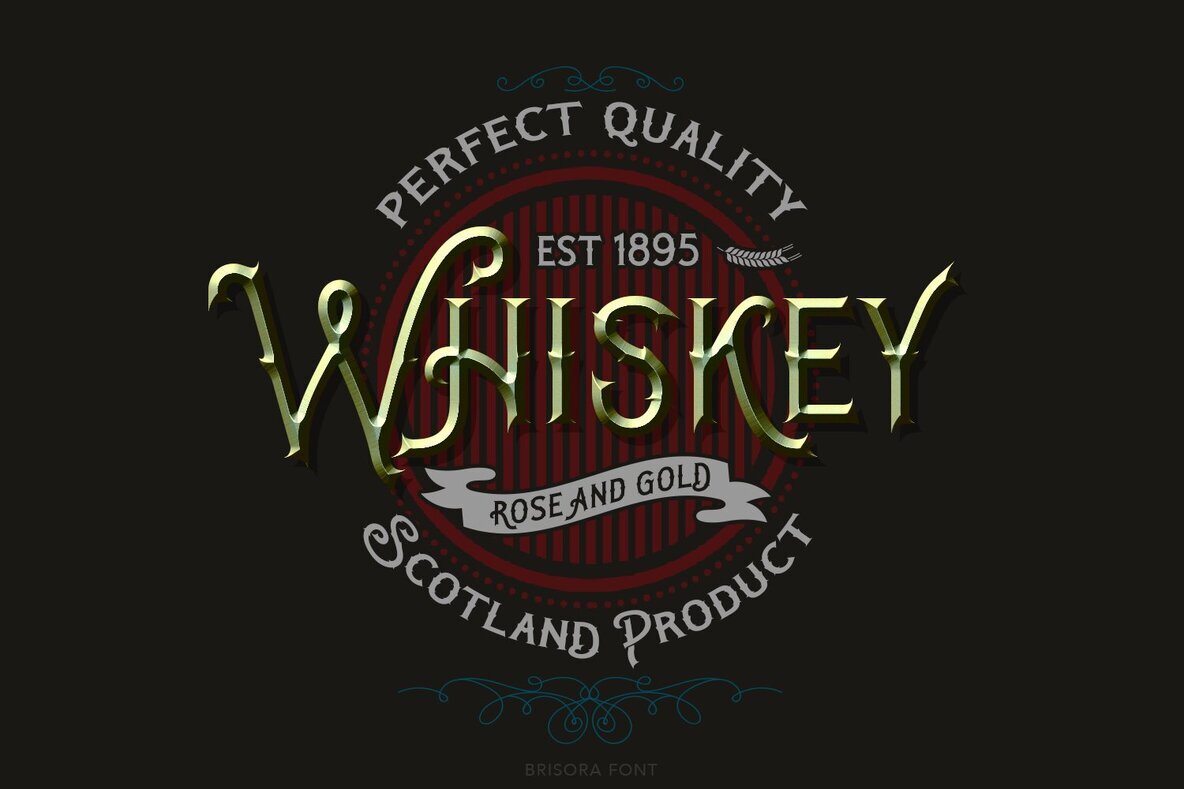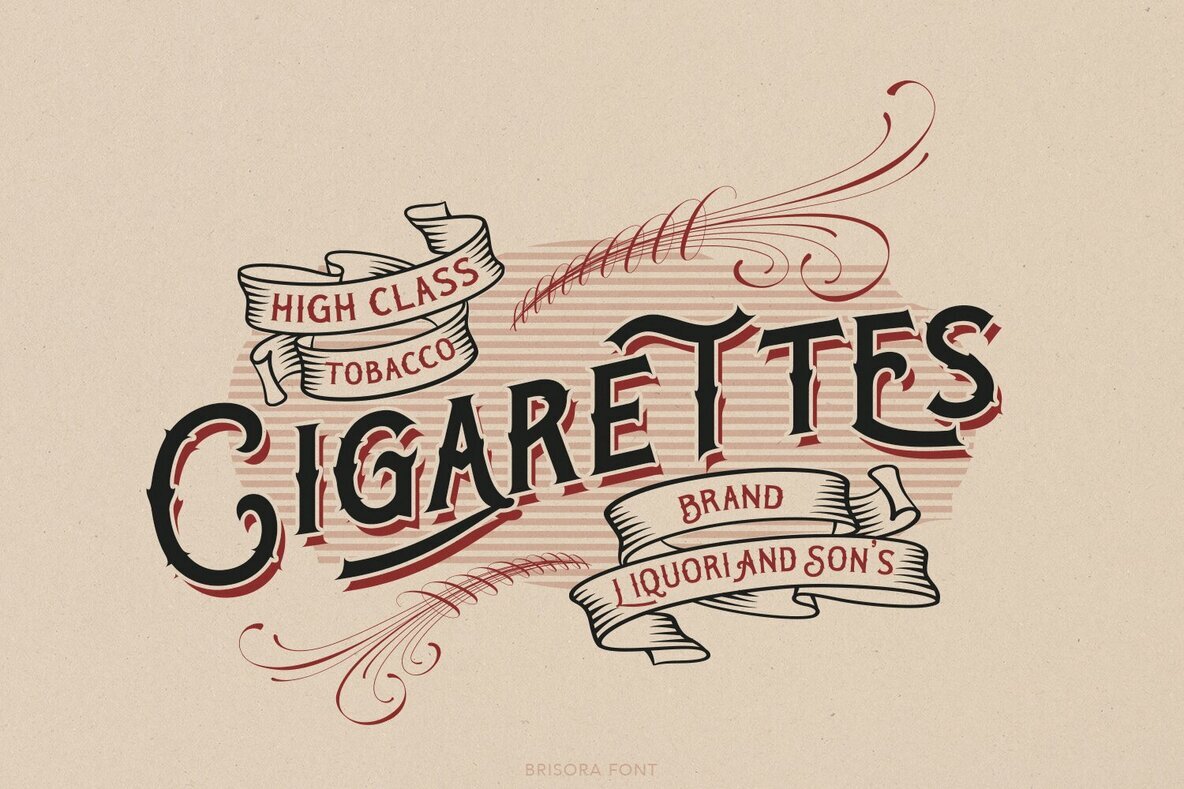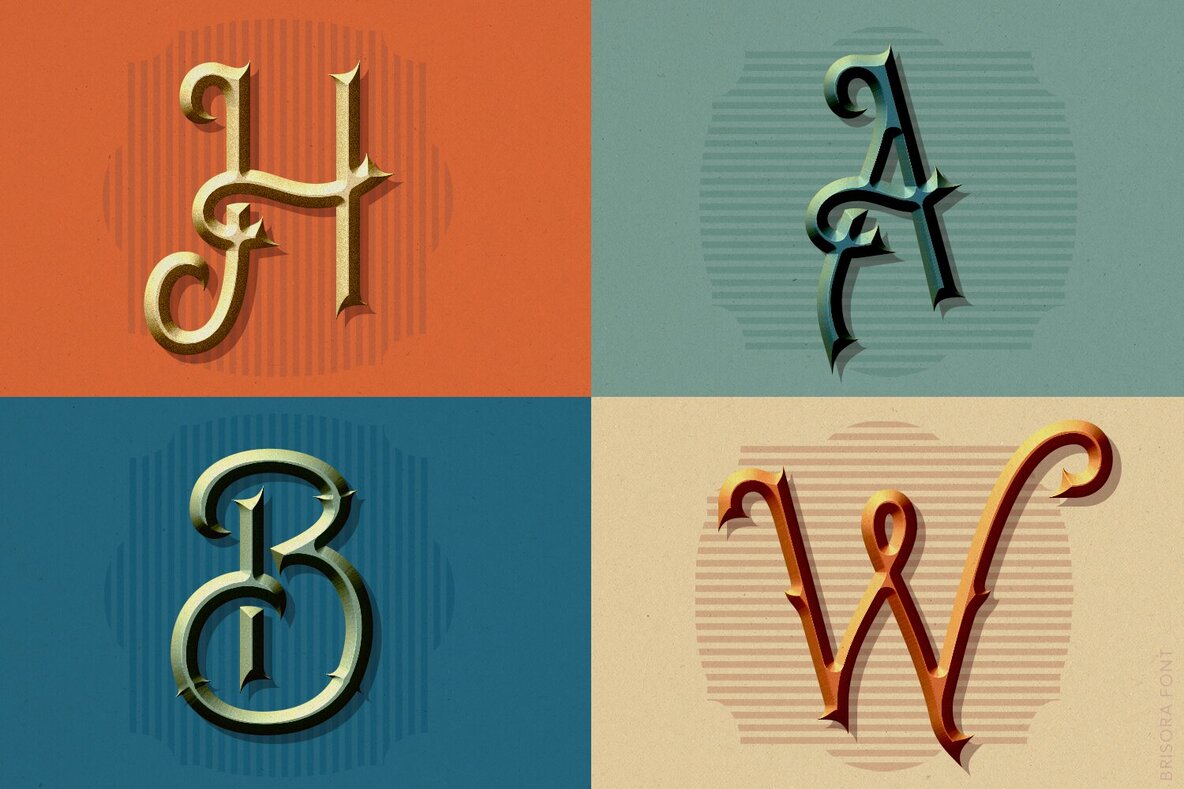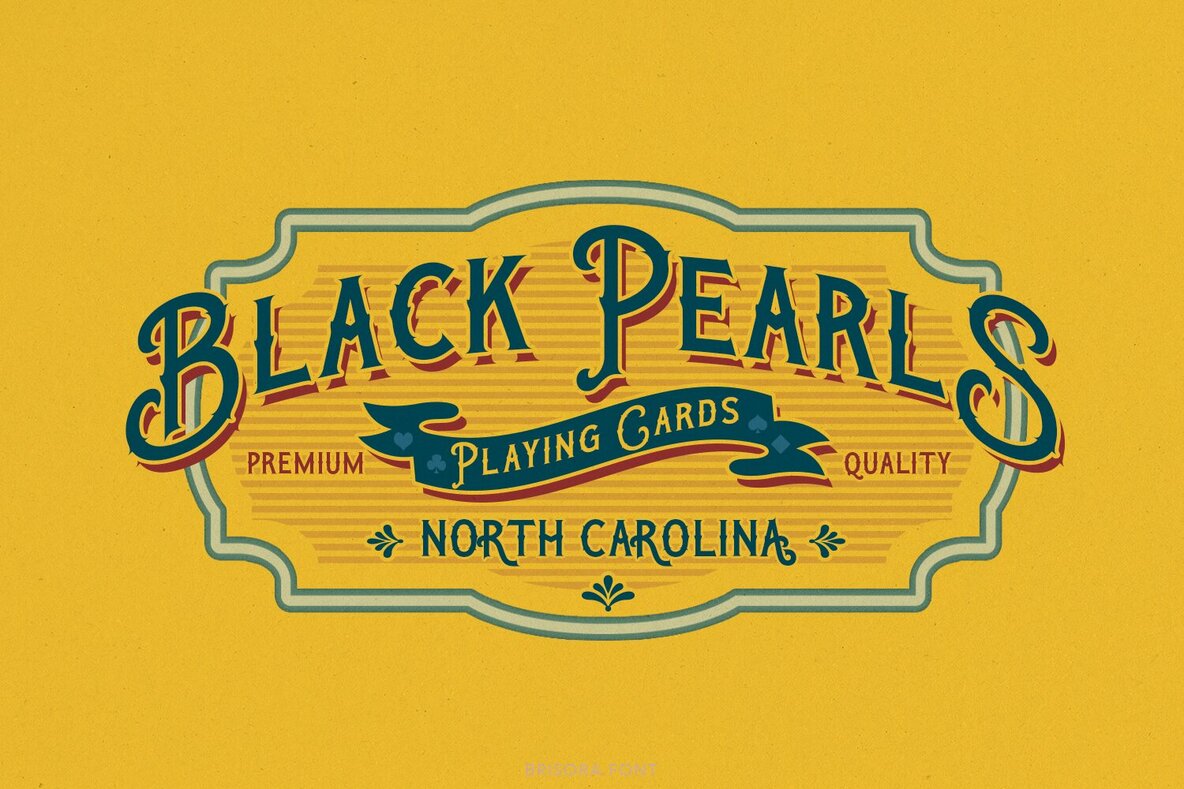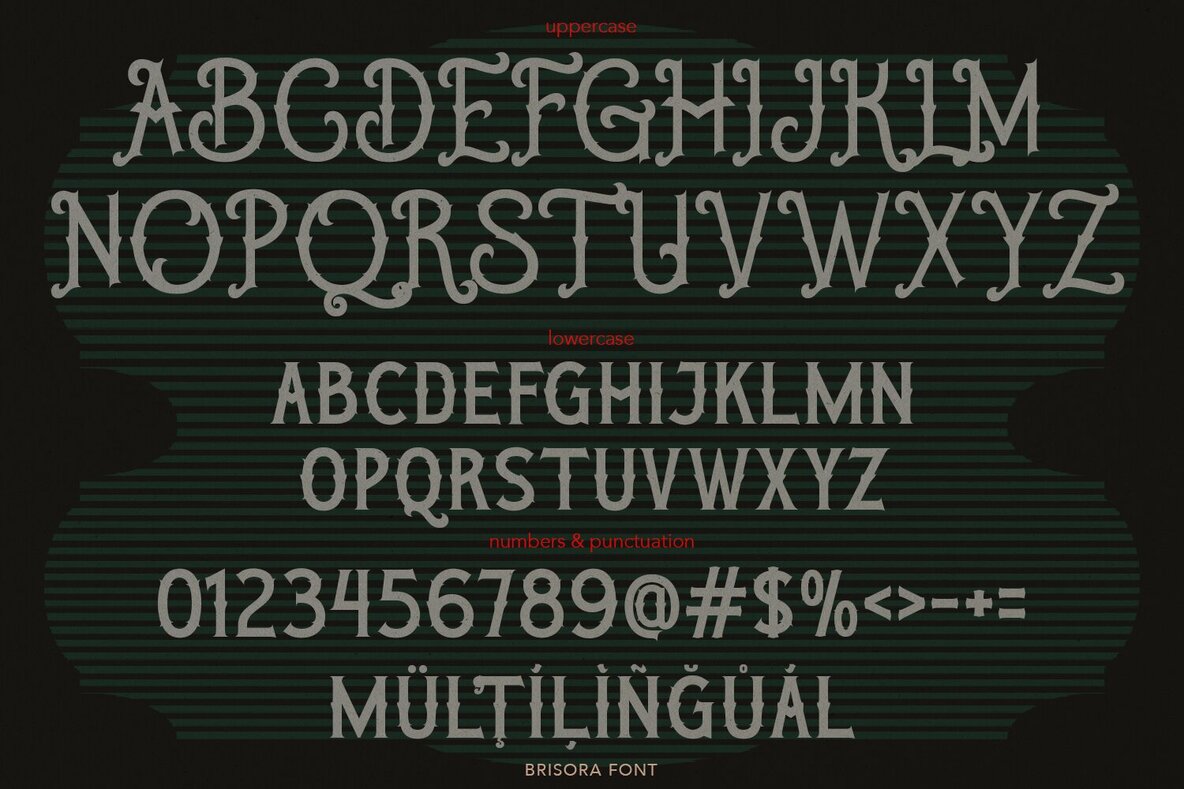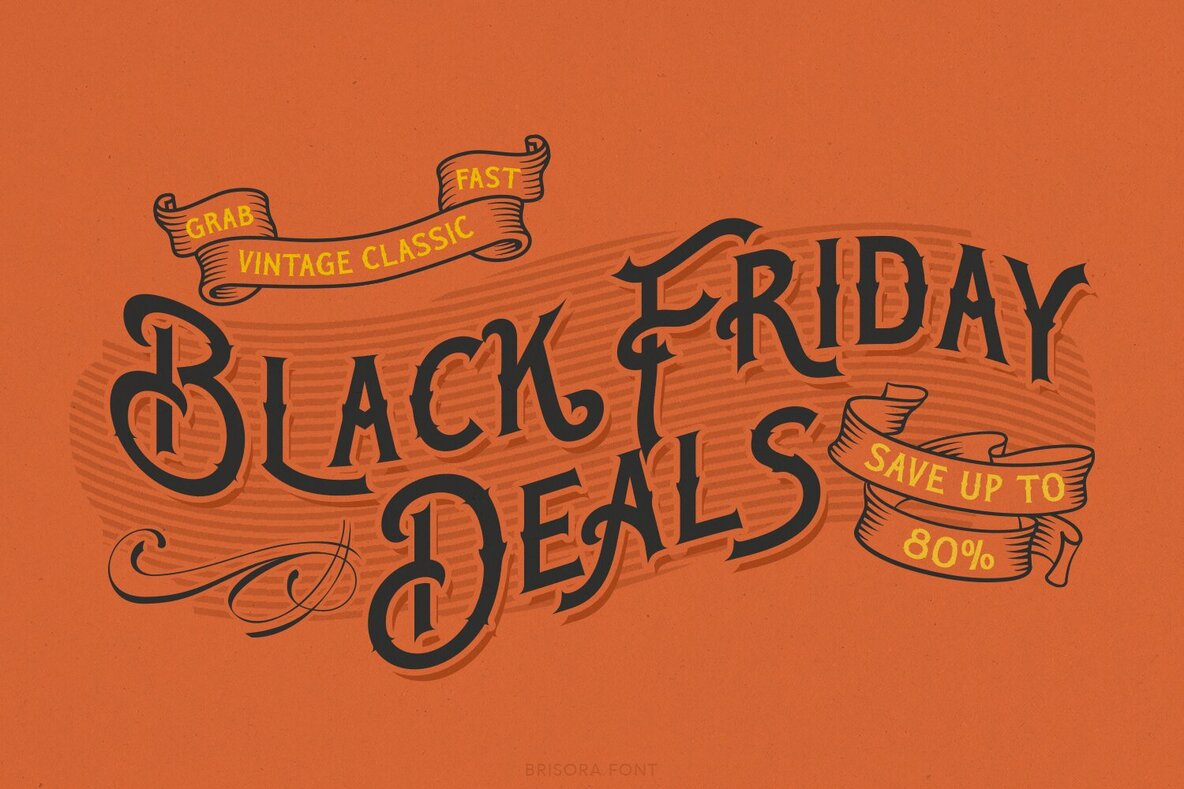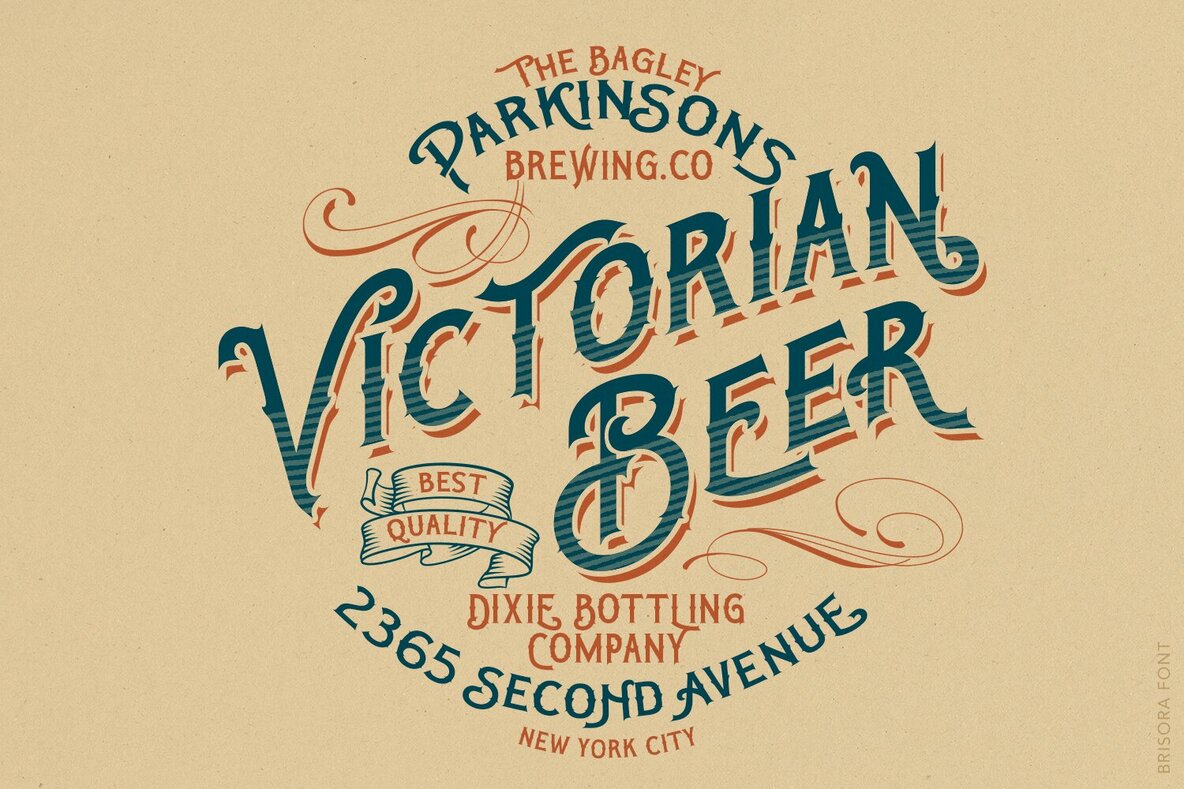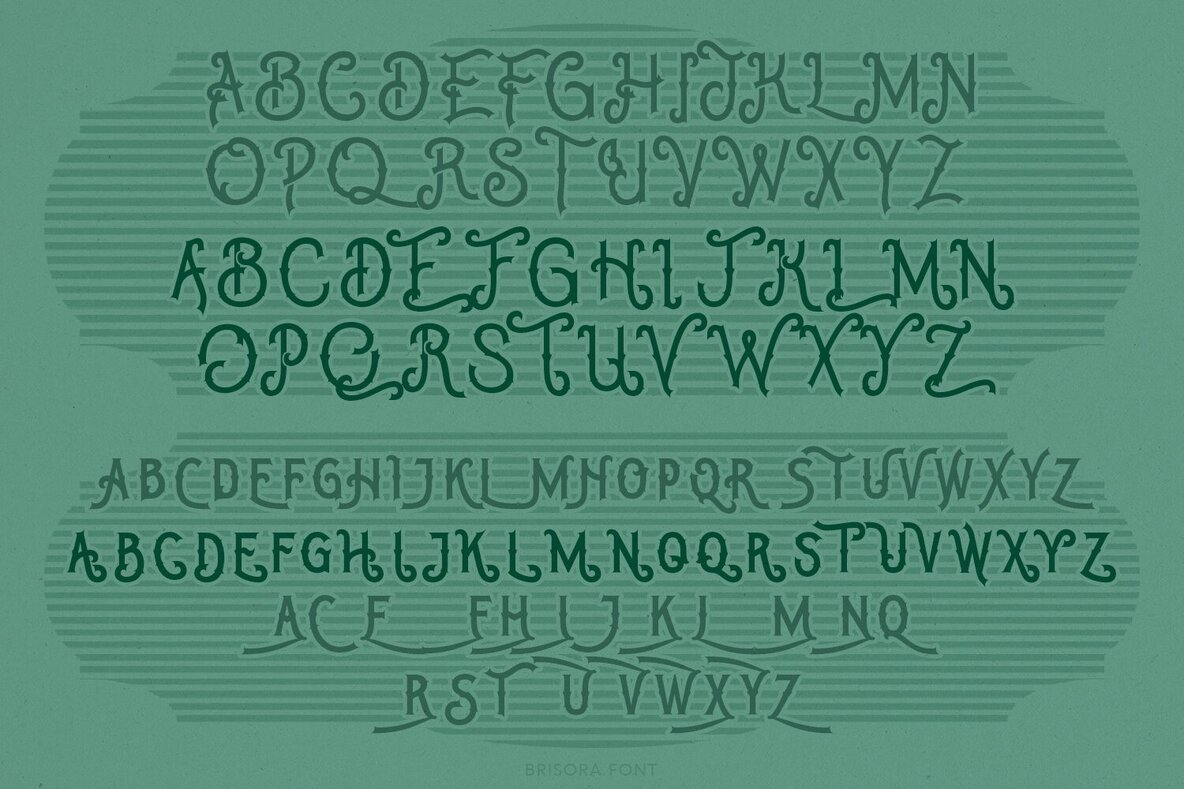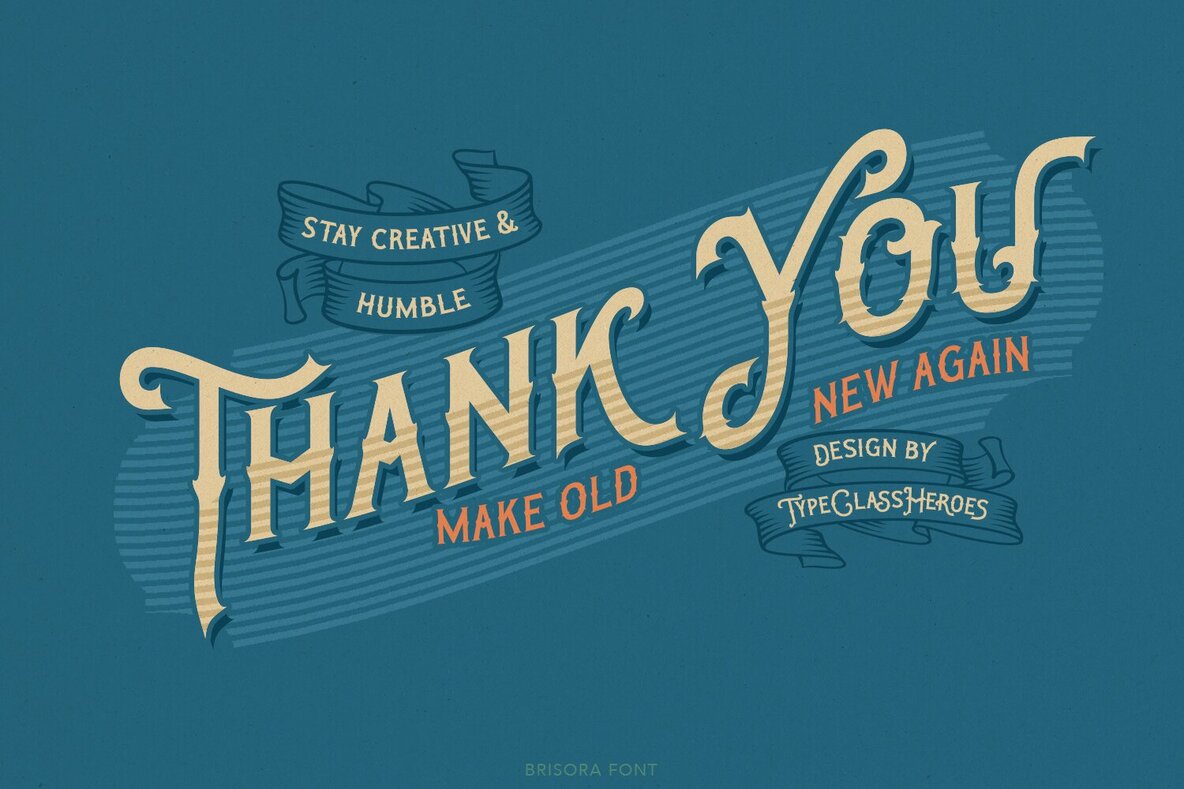
Brisora Font
We proudly present Brisora, an all-caps font that blends elegant touches with a classic feel. This font is inspired by 19th-century typography, old fancy lettering, vintage illustrations, and Victorian calligraphy. Brisora is perfect for various display purposes, especially if you are aiming for a vintage, classic style with an elegant and luxurious touch. Ideal uses include:Brisora: A Classic All-Caps Font with Elegant Touch